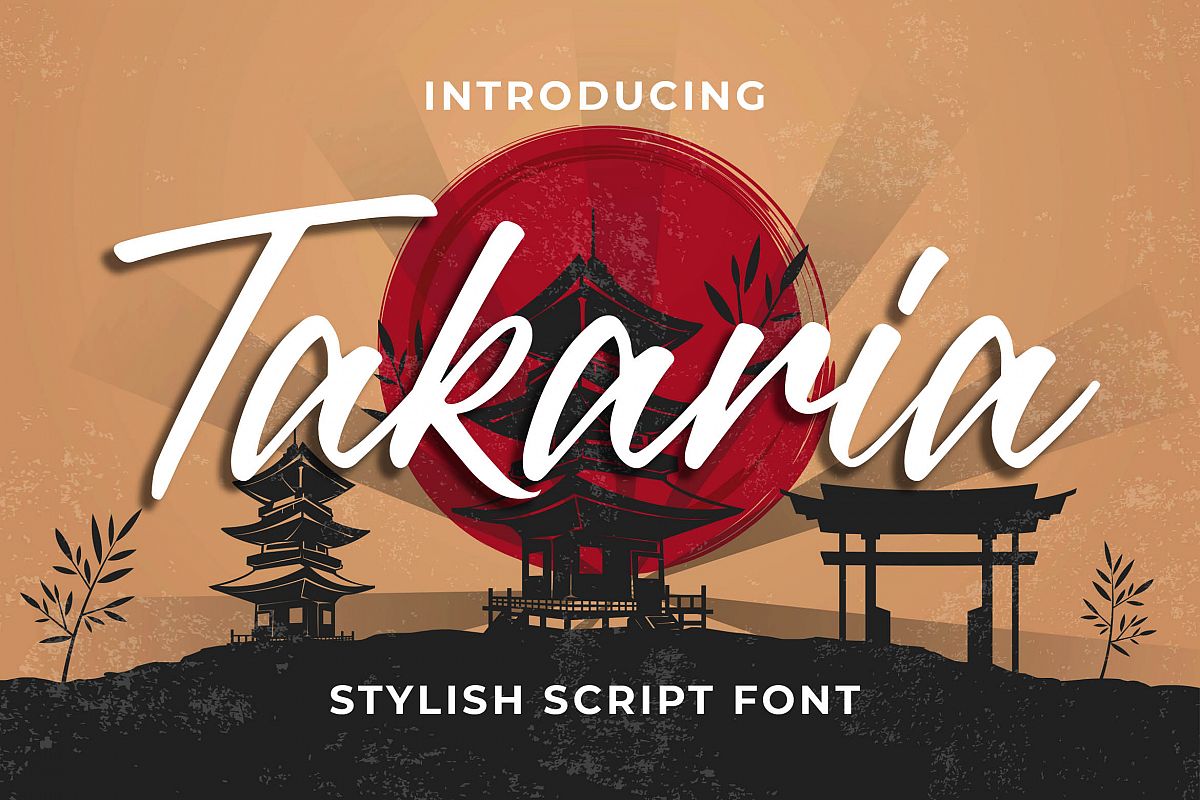
Introducing a new Font called Takaria a Stylish Sciprt Font. Takaria good for signature, logotype, poster, social media, book cover, tshirt design, packaging and any more.